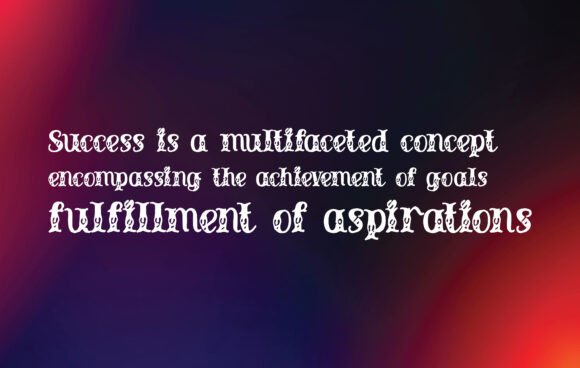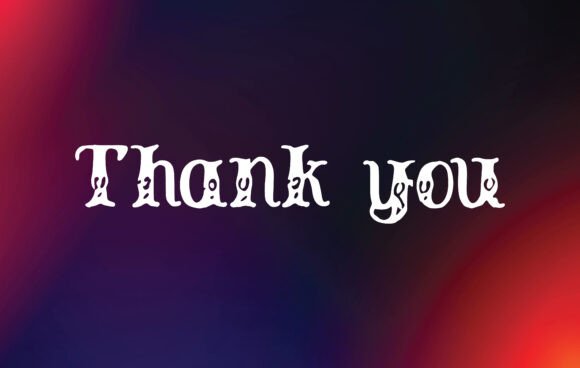
Discover the Power of Green Font: Elevate Your Designs with a Lovely and Beautiful Typeface
Are you a designer or crafter looking for a font that can take your creative ideas to the next level? Look no further than the Green Font. This stunning typeface has the potential to elevate your designs, making it the perfect choice for creating eye-catching logos, branding, and quotes. In this article, we’ll explore the world of Green Font, its features, and how it can help you achieve your design goals.
The Beauty of Green Font
Green Font is a lovely and beautiful font that boasts a unique and captivating style. Its elegant curves and lines make it a versatile typeface that can be used in a variety of design projects. Whether you’re creating a logo, brochure, or social media graphic, Green Font is sure to make a statement. Its beautiful design ensures that your text will stand out, grabbing the attention of your audience and leaving a lasting impression.
Why Choose Green Font?
So, what makes Green Font the best choice for designers and crafters? Here are just a few reasons why you should consider adding it to your font collection:
- Elegant and Sophisticated: Green Font exudes elegance and sophistication, making it perfect for high-end branding and luxury designs.
- Versatile: This font can be used in a variety of design projects, from logos and brochures to social media graphics and quotes.
- Easy to Read: Green Font is clear and easy to read, ensuring that your message gets across to your audience.
- Unique: With its distinctive style, Green Font will help your designs stand out from the crowd.
Using Green Font for Logos and Branding
When it comes to creating logos and branding, Green Font is an excellent choice. Its elegant design and versatility make it perfect for:
- Logos: Create a stunning logo that showcases your brand’s personality and style.
- Business Cards: Make a lasting impression with beautifully designed business cards that feature Green Font.
- Brochures: Use Green Font to create eye-catching brochures that showcase your products or services.
Creating Eye-Catching Quotes with Green Font
Green Font is also perfect for creating eye-catching quotes that inspire and motivate. Whether you’re designing a social media graphic or a poster, this font will help your message stand out. Here are some tips for using Green Font to create stunning quotes:
- Choose a Bold Color: Pair Green Font with a bold color to make your quote stand out.
- Add Visuals: Incorporate visuals, such as illustrations or images, to enhance your quote and make it more engaging.
- Experiment with Layouts: Try out different layouts and arrangements to create a unique and eye-catching design.
Tips for Using Green Font Effectively
To get the most out of Green Font, here are some tips to keep in mind:
- Use it Sparingly: While Green Font is beautiful, it’s best to use it sparingly to avoid overwhelming your design.
- Pair it with Other Fonts: Experiment with pairing Green Font with other fonts to create a unique and visually appealing design.
- Consider the Context: Make sure Green Font fits with the tone and style of your design project.
In conclusion, Green Font is a lovely and beautiful font that has the potential to take your creative ideas to the highest level. Its elegant design, versatility, and ease of use make it the perfect choice for designers and crafters looking to create eye-catching logos, branding, and quotes. By following the tips outlined in this article, you’ll be able to get the most out of Green Font and create stunning designs that leave a lasting impression.